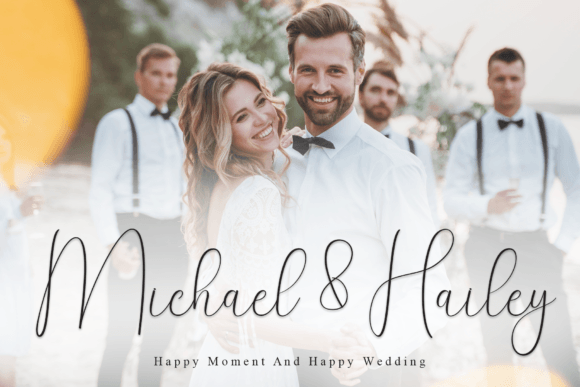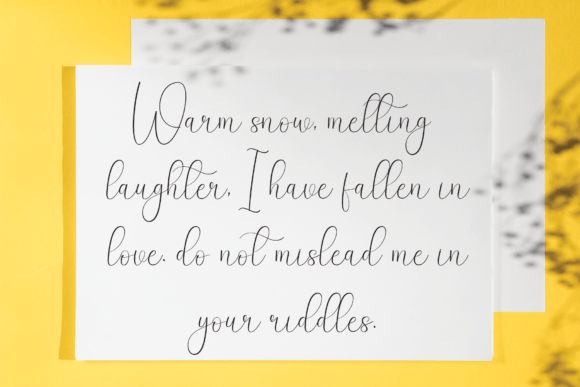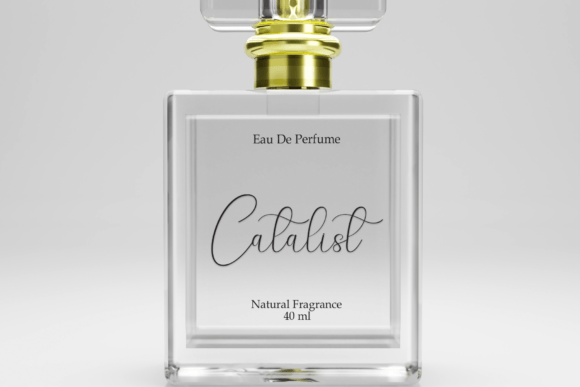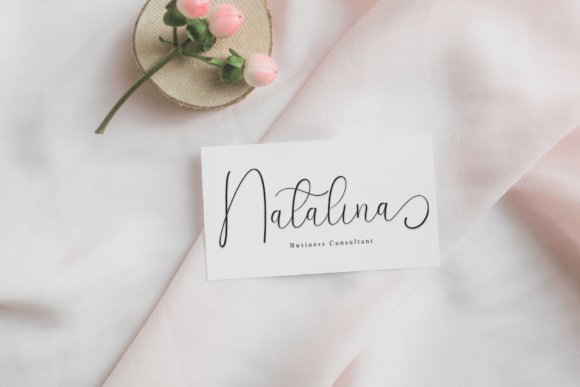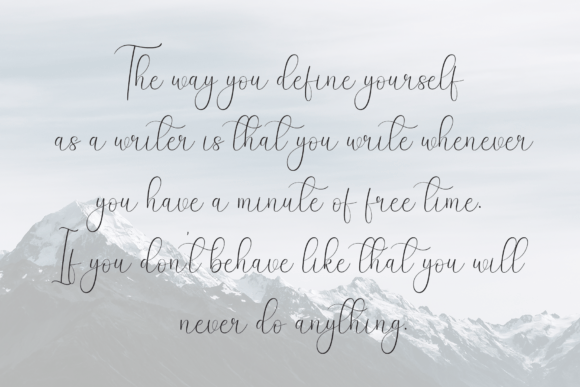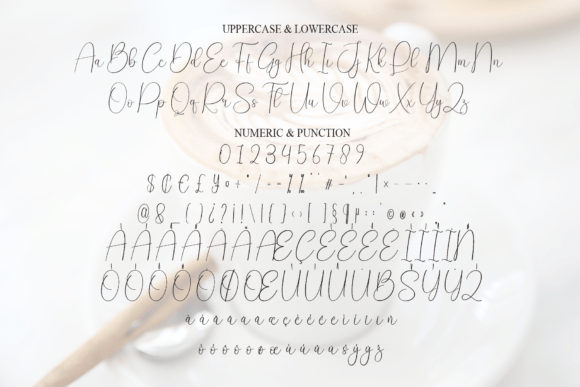
The Charming Coffelatte Font: A Designer’s New Best Friend
I’ll never forget the time I was working on a wedding invitation project, and my client asked for a font that was “whimsical, yet elegant.” I scoured the internet, tried out dozens of fonts, but nothing seemed quite right. That was until I stumbled upon the Coffelatte Font. ✨ It was love at first sight! The charmingly warm and amicable handwriting-inspired font won my heart, and I knew I had found the perfect fit for my project.
- ✨ The Coffelatte Font has a delightful whimsy that adds a touch of playfulness to any design project.
- ✅ Its light-hearted and endearing personality makes it perfect for crafting wedding invites, greeting cards, and other creative ventures.
- 💕 The font’s unique character and charm make it stand out from more traditional fonts.
While the Coffelatte Font is a stunning addition to any design project, there are a few things to keep in mind: 🤔
- ⚠️ The font can be a bit tricky to read at smaller sizes, so it’s best used for headlines or titles.
- ⚠️ Some of the more intricate details may not render well on certain devices or browsers.
The Designer Inspiration Behind Coffelatte Font
The Coffelatte Font was designed with the intention of creating a warm and inviting font that’s perfect for creative projects. The designer wanted to create a font that would evoke feelings of joy and playfulness, while still maintaining a level of sophistication and elegance.
Q: What type of projects is the Coffelatte Font best suited for?
A: The Coffelatte Font is perfect for crafting wedding invites, greeting cards, and other design projects that require a touch of whimsy and elegance.
Q: Is the Coffelatte Font available in different weights or styles?
A: The Coffelatte Font is available in a range of weights and styles, making it versatile for different design projects.